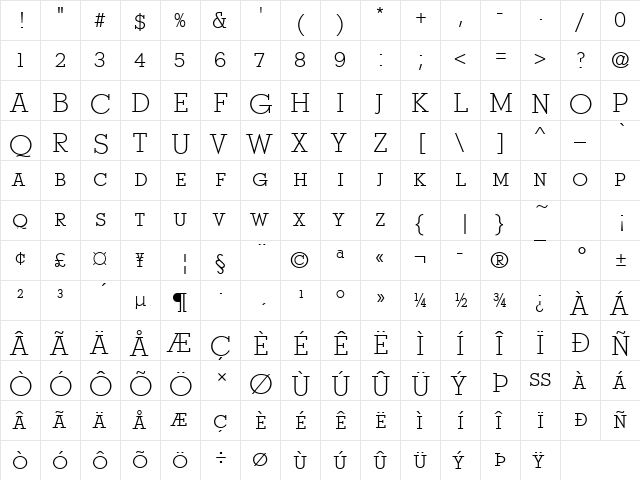
StymieDCDLig Regular
Design Context for StymieDCDLig Typeface
StymieDCDLig is a composed and adaptable typeface that performs quietly and consistently across a wide range of design contexts.